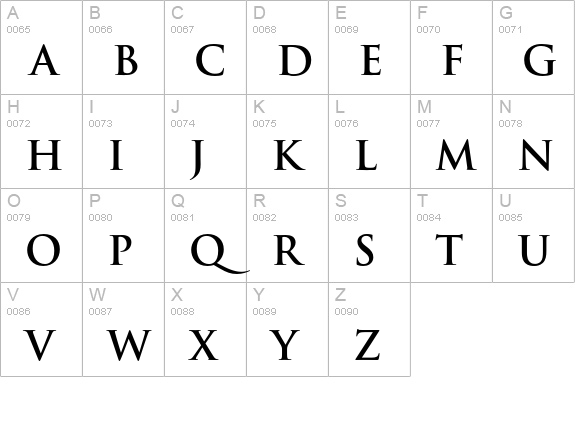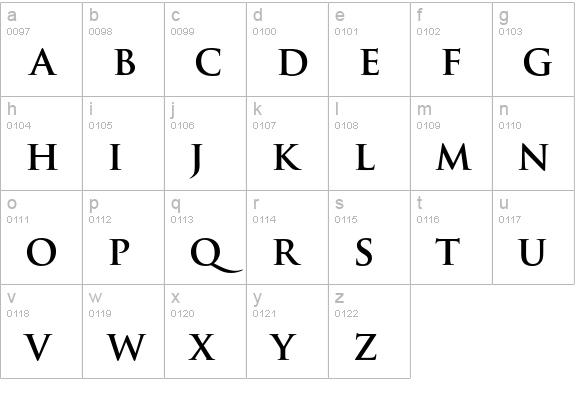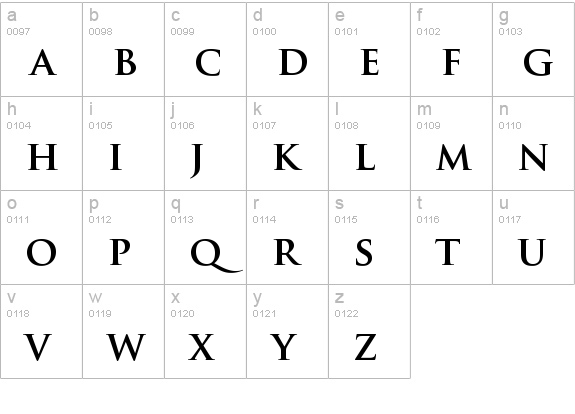
Trajan Pro Bold is a strong, high-contrast variant in the Trajan typeface family \xE2\x80\x94 well suited to headlines, attention-grabbing titles, and strong calls-to-action.
Trajan Pro Bold is a timeless and sophisticated font that exudes elegance and authority. Its bold and commanding presence makes it perfect for headlines, titles, and any design project that requires a strong and impactful typographic statement. With its clean lines, sharp edges, and balanced proportions, Trajan Pro Bold captures attention and demands to be noticed. Its classic Roman-inspired letterforms evoke a sense of grandeur and prestige, making it a preferred choice for prestigious brands, luxury magazines, and high-end editorial layouts. The versatility of Trajan Pro Bold allows it to seamlessly adapt to various design styles, from traditional to modern. Its bold weight adds emphasis and gravitas, while its refined details and graceful curves add a touch of sophistication to any composition. One of the most remarkable features of Trajan Pro Bold is its readability. Even at smaller sizes, every letter remains clear and distinct, ensuring legibility is never compromised. This makes it an excellent choice for body text in brochures, posters, or any project where readability is paramount. And the best part? Trajan Pro Bold is freely available to download at FontsMarket.com. This means that designers, artists, and typographers can enjoy the benefits of this exceptional font without any cost. Whether you're a professional or a hobbyist, this generous offering allows you to elevate your designs with the timeless beauty and impact of Trajan Pro Bold. In summary, Trajan Pro Bold is a font that embodies strength, elegance, and versatility. Its commanding presence, impeccable readability, and timeless aesthetic make it a valuable asset for any design project. And with its availability as a free download at FontsMarket.com, there's no reason not to incorporate this exceptional font into your next creation.